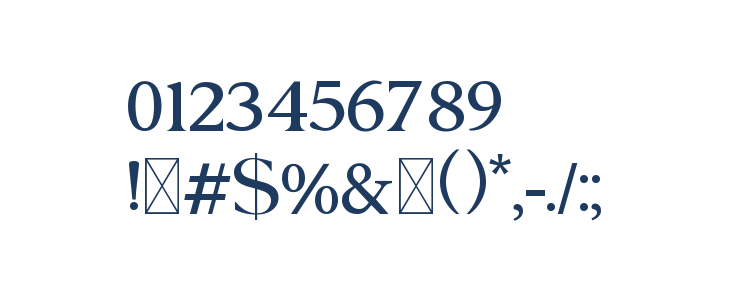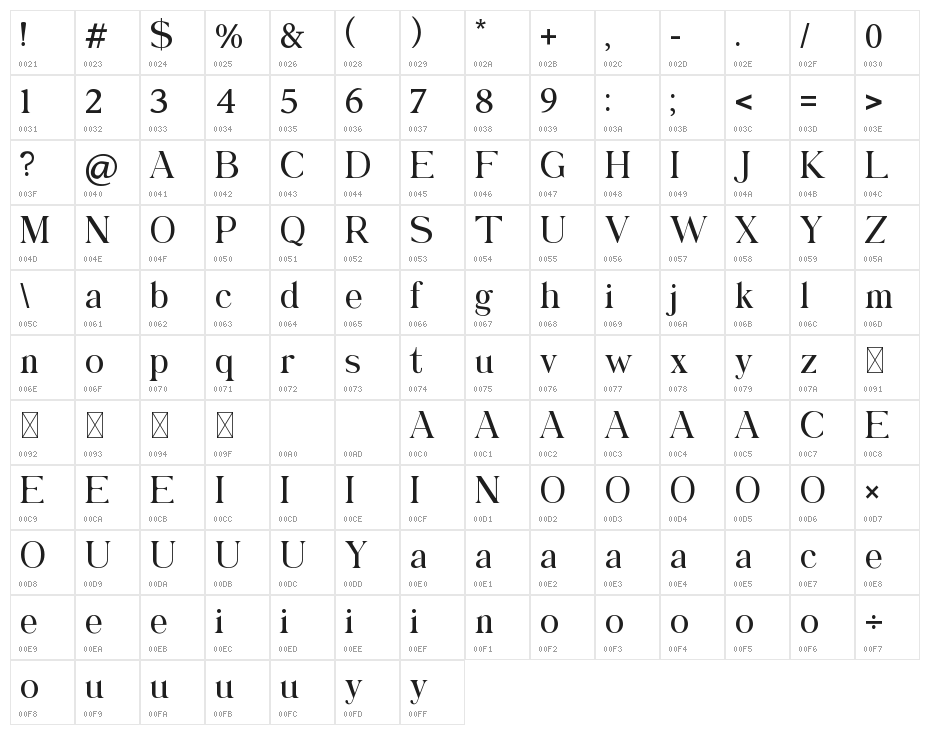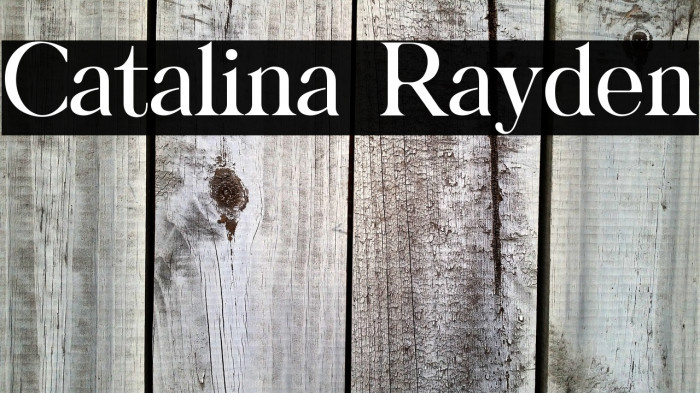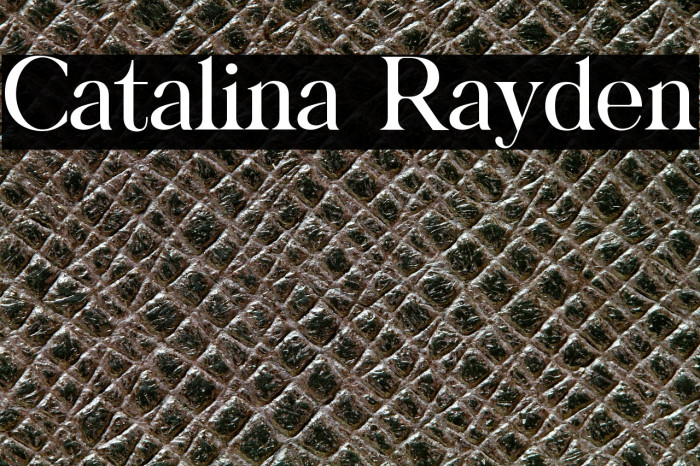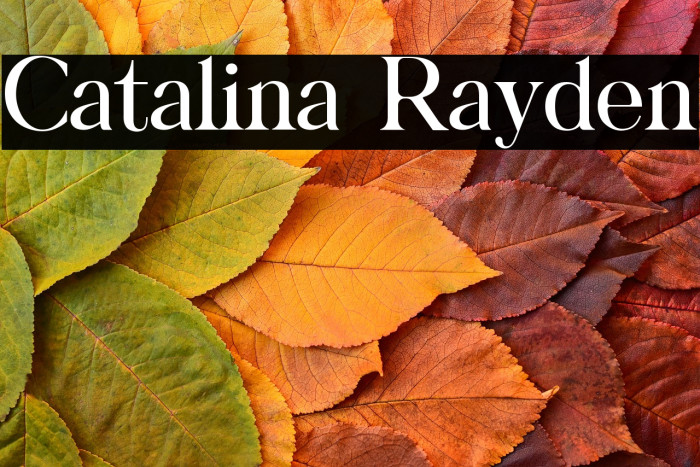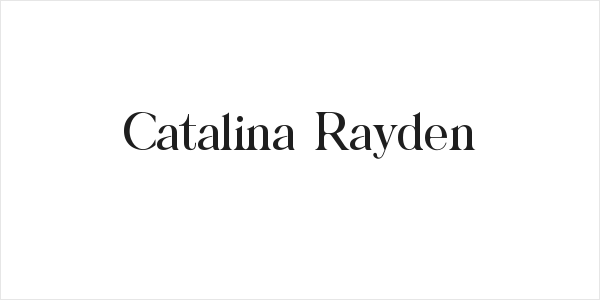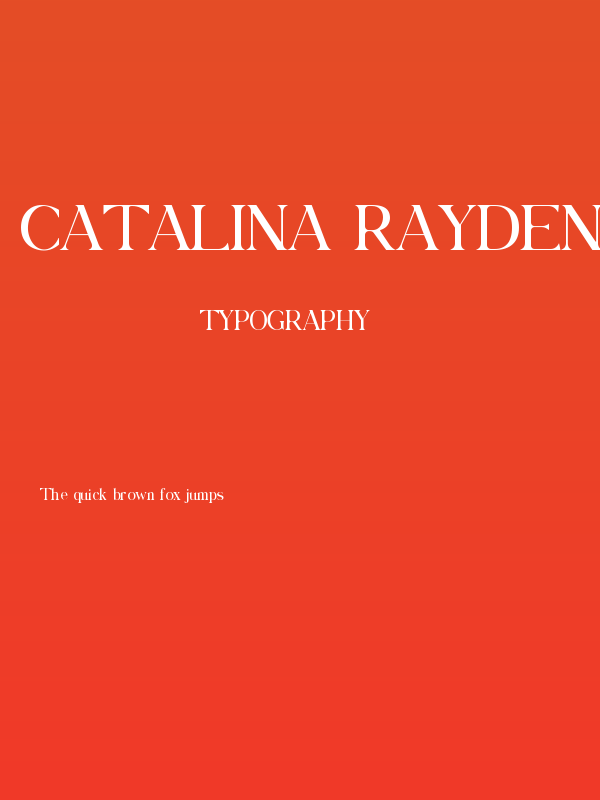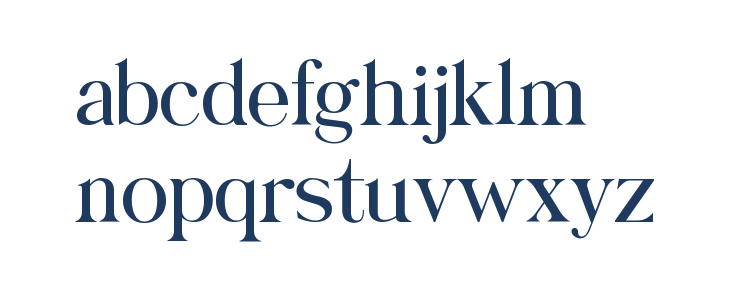
Catalina Rayden Font
Catalina Rayden Description
This font exudes a classic elegance with its high contrast between thick and thin strokes, characteristic of traditional serif typefaces. The serifs are pronounced and sharp, adding a touch of sophistication and formality. The uppercase letters are stately and well-proportioned, while the lowercase letters maintain a graceful flow, making it suitable for both display and body text. The numerals are clear and distinct, ensuring readability. Special characters are designed with the same attention to detail, providing a cohesive look across all glyphs.